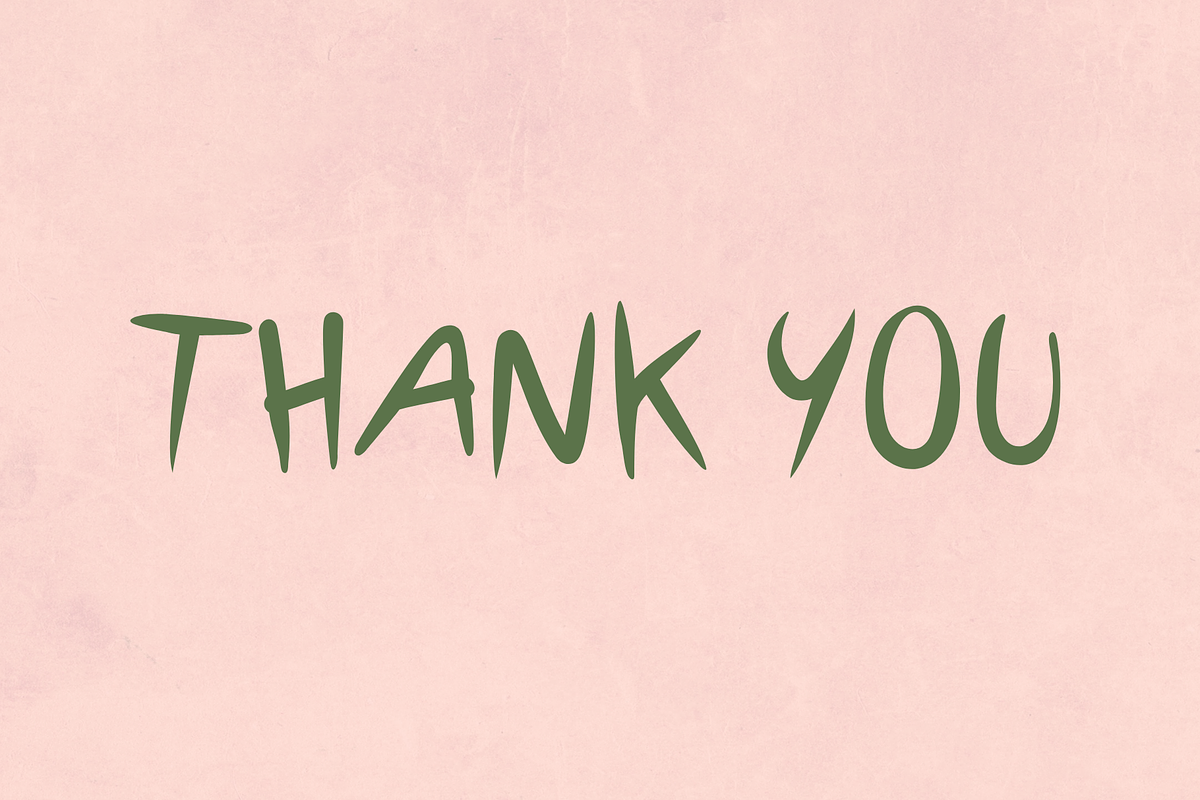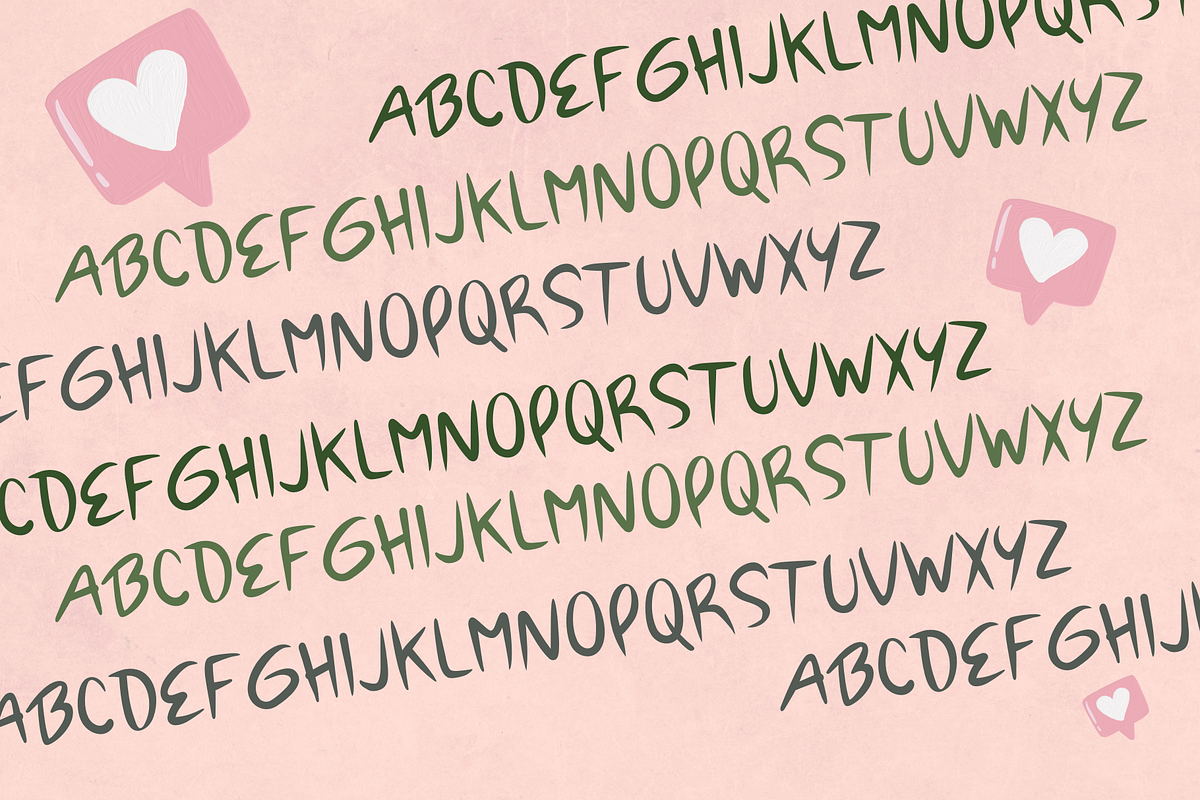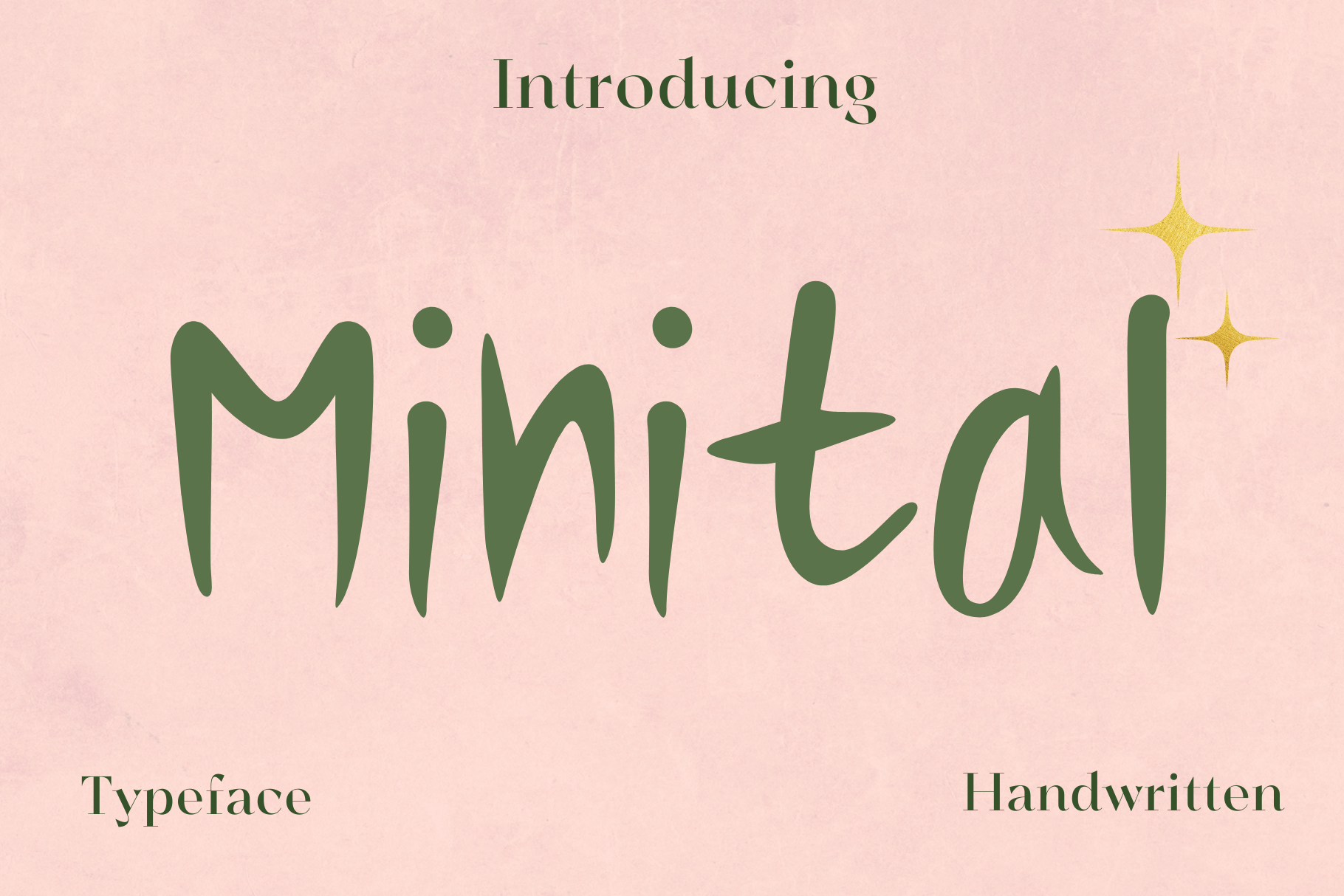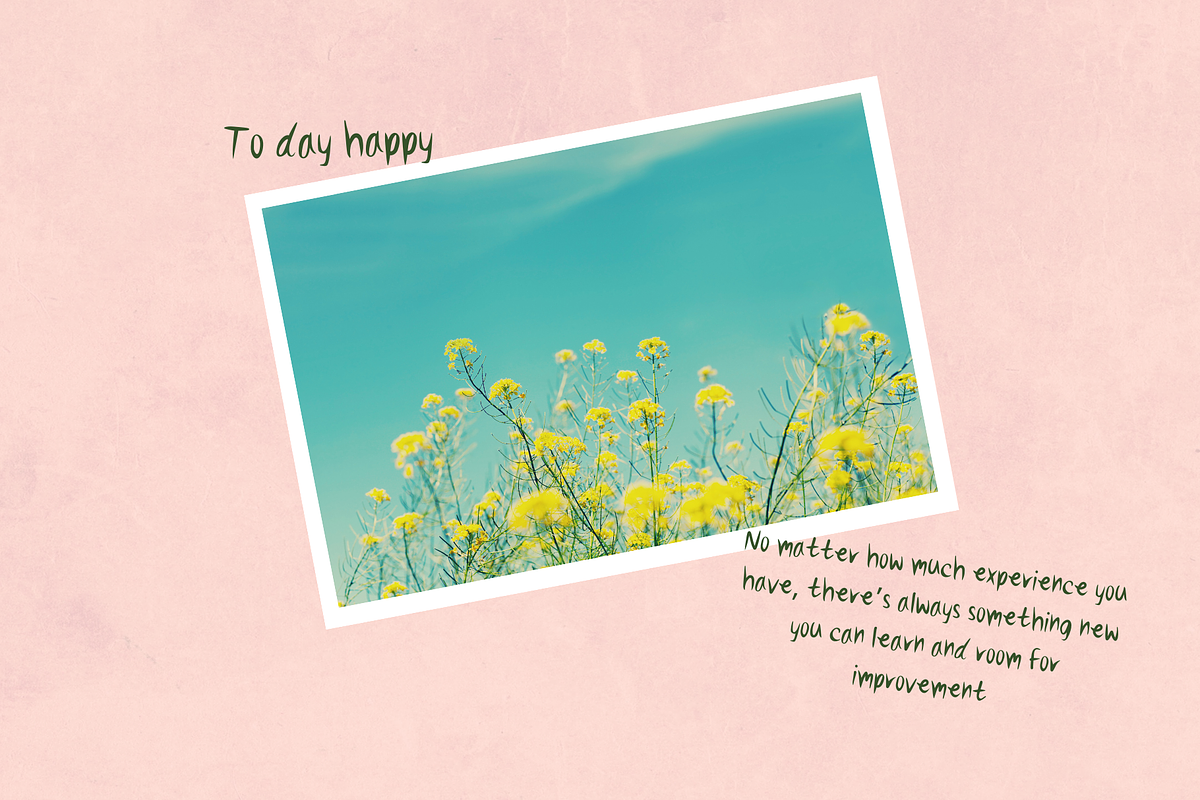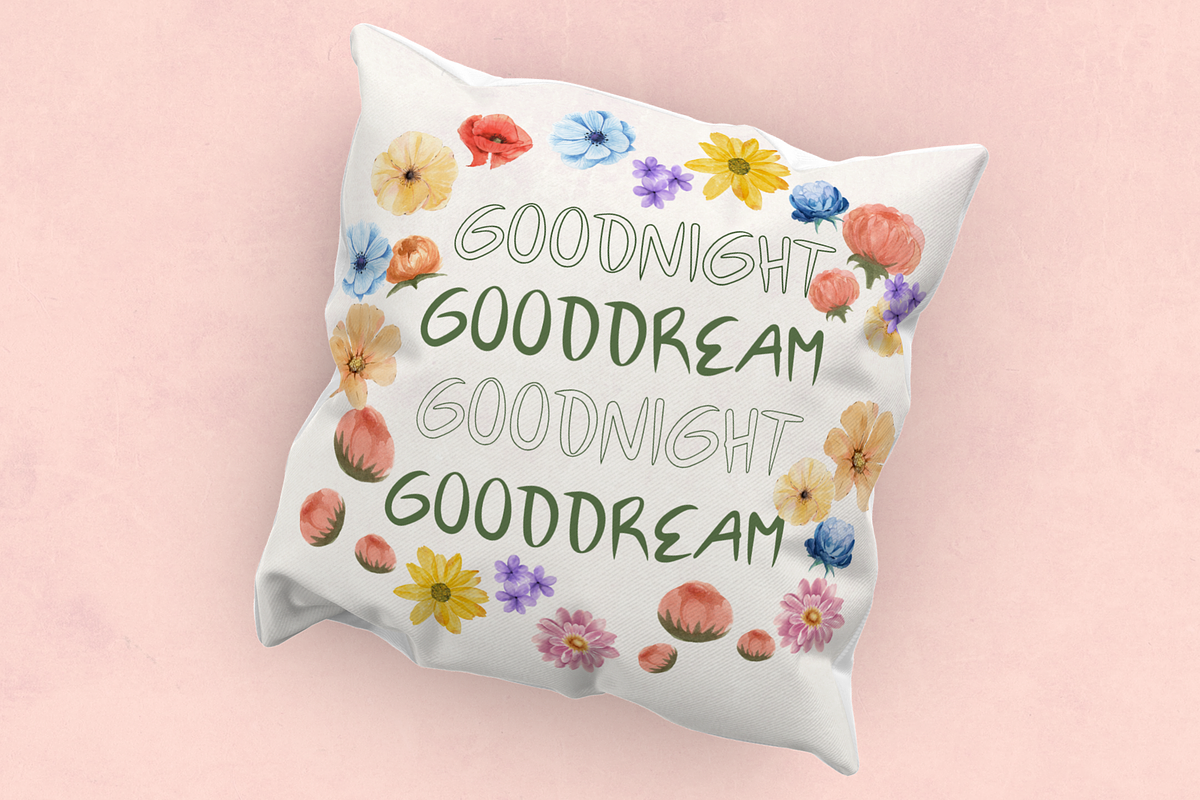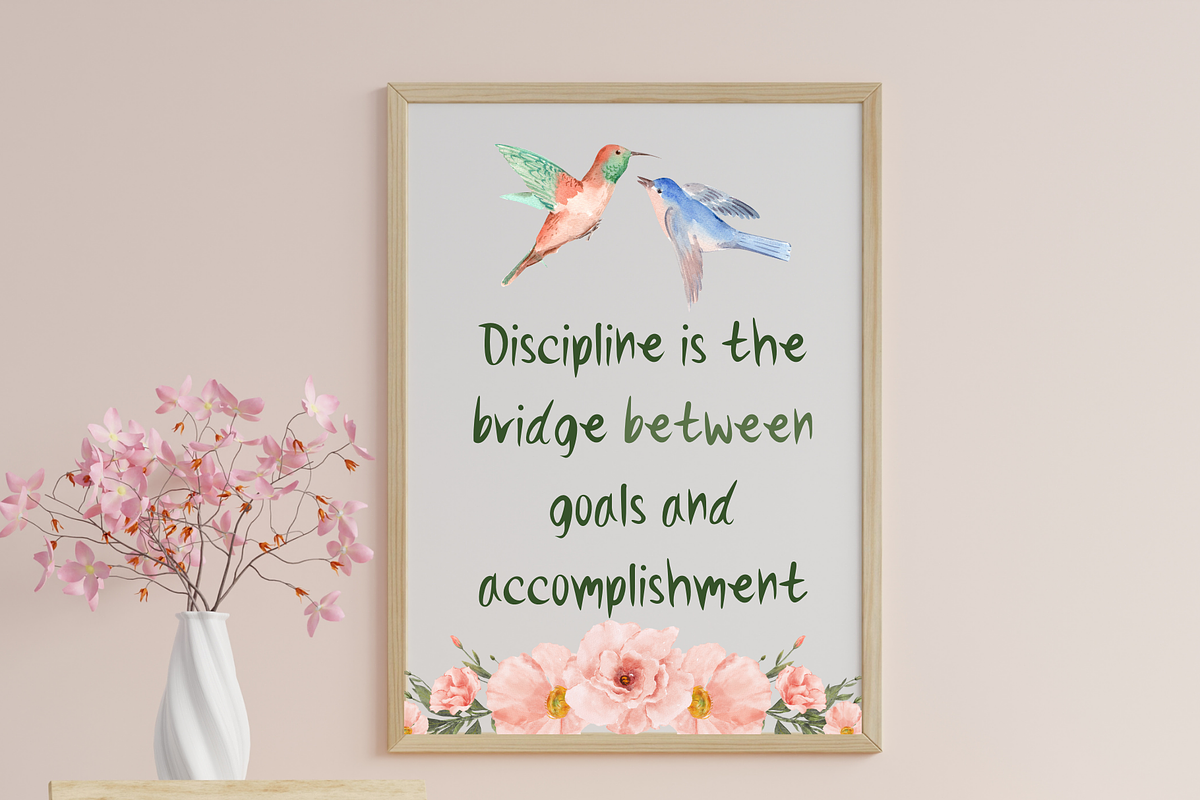
Minital font
This unique and charming font, with its distinctiveness, allows you to have fun with your individualized designs, making your design work stand out from the crowd. It's designed to evoke a classic and trendy feel. You can apply this font to various design projects, such as water bottles, clothing, bags, stickers, notebooks, and more. I'm pleased that you've come to view my work, and I hope you enjoy it!